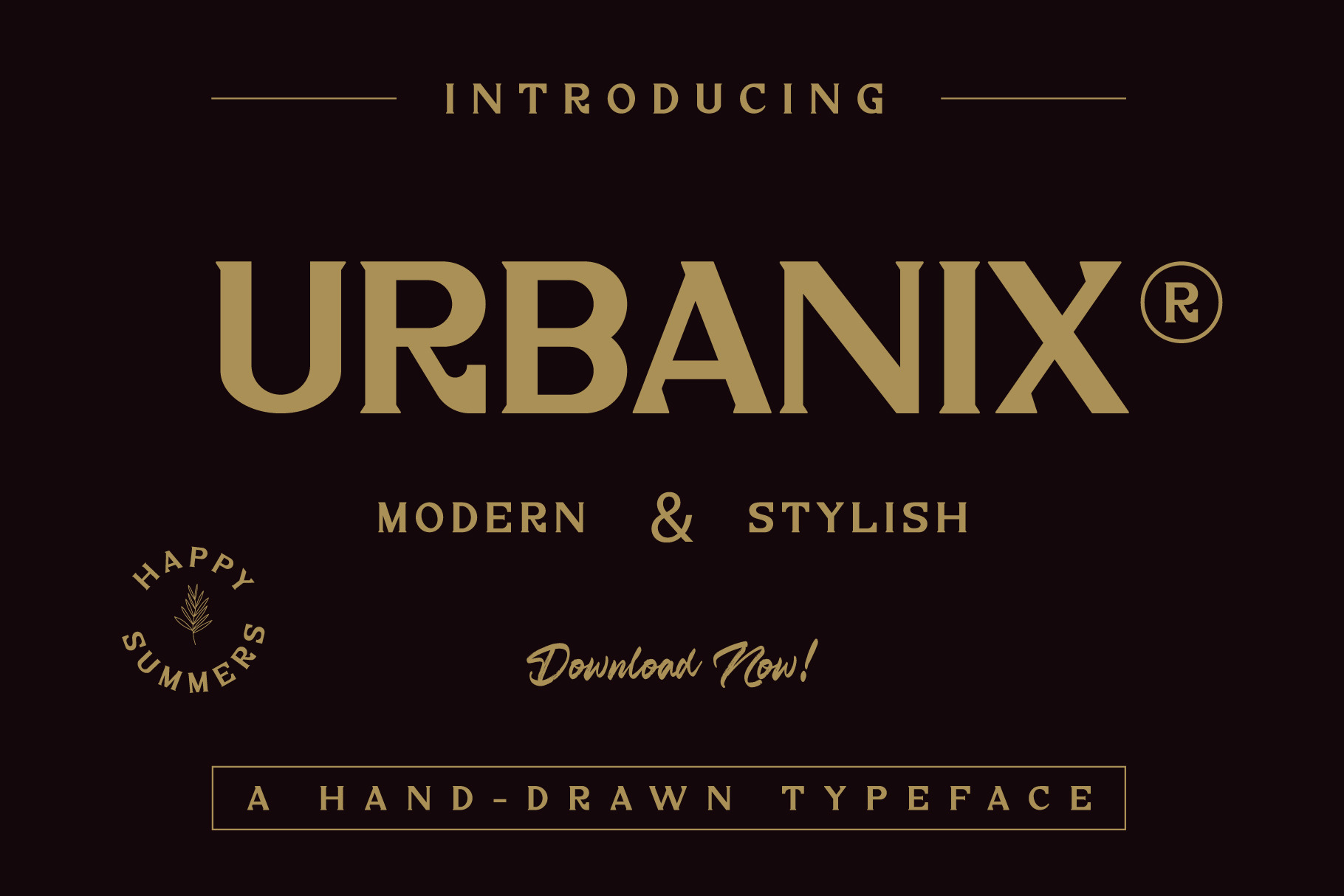
Urbanix Serif Font
Urbanix Font is a modern font that feels beautiful classy, elegant, and modern. It is perfectly suited for a wide variety of projects, as to signature, stationery, logo, wedding, typography quotes, magazine or book cover, website header, clothing, branding, packaging design and more.